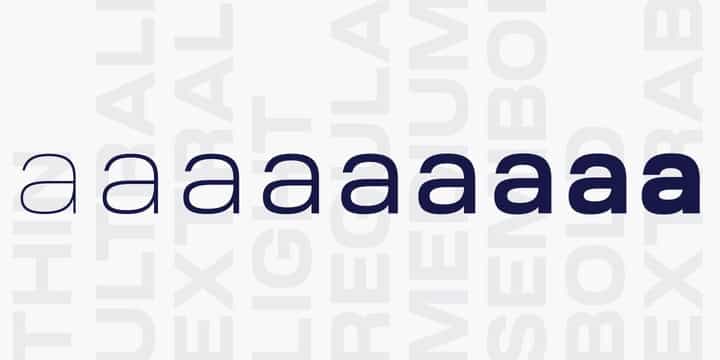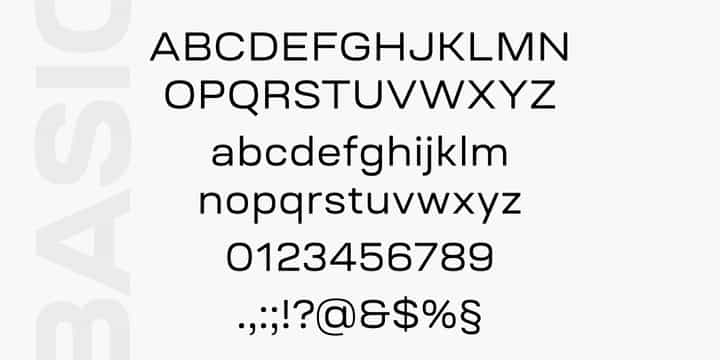
Ruberoid is the mostly used font style; hence, it has a lot of applications. It is a low x-height and has many light size options like that of reading, its tenuous white spaces in the counter letterforms make it legible enough to be recognized remotely.